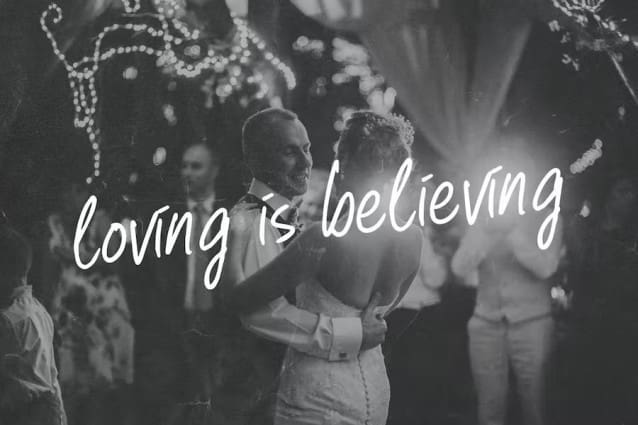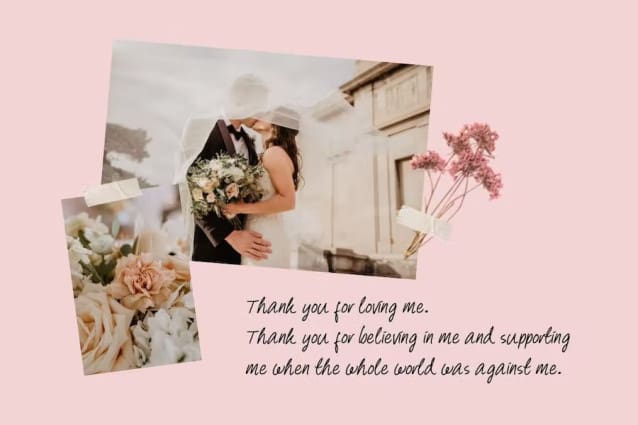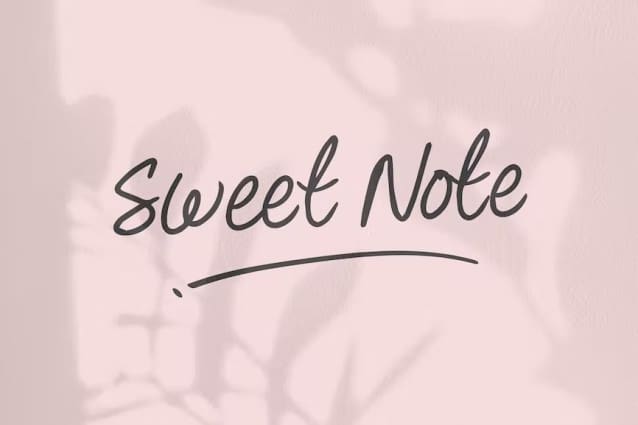
Sweet Note Font
Sweet Note Font is a handwritten font that will suit perfectly for many projects. From personal note taking, goodnotes font, wedding, classroom, card title, logos, and many more. This font is easy to install both on mac or PC, also works with software like ms words, powerpoint, photoshop, adobe illustrator, and etc.